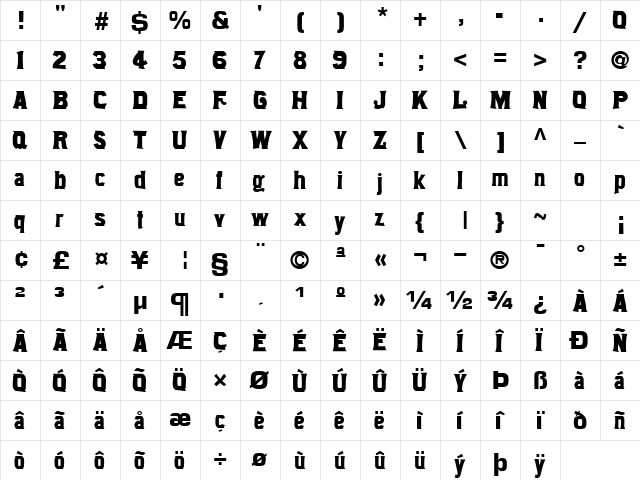
Jackson Bold
Design Context for Jackson Typeface
Jackson is a composed and adaptable typeface that performs quietly and consistently across a wide range of design contexts. Its bold stroke weight gives it real presence on the page.